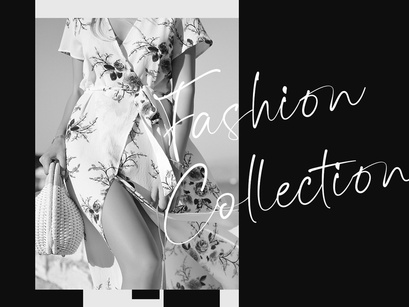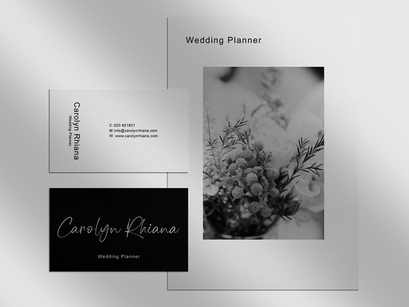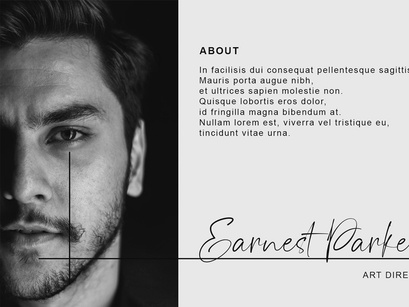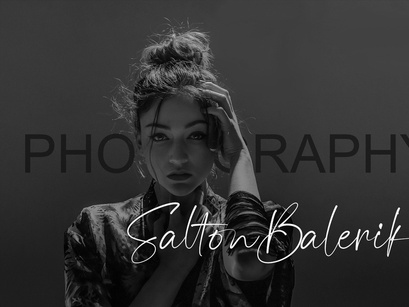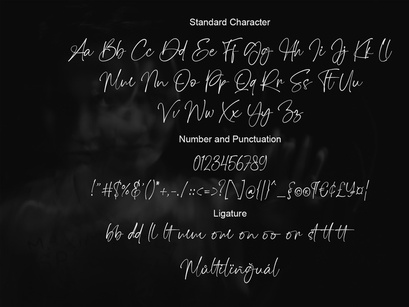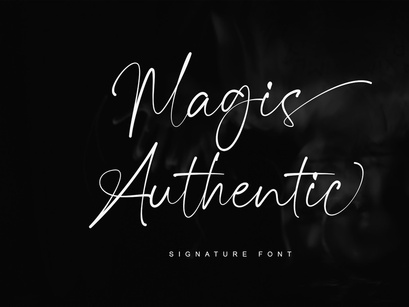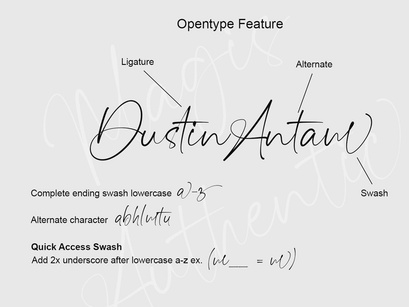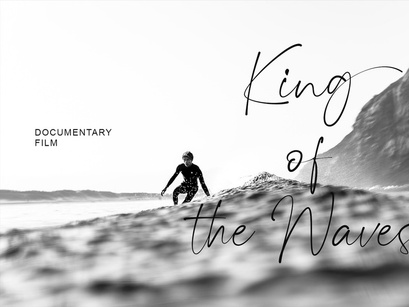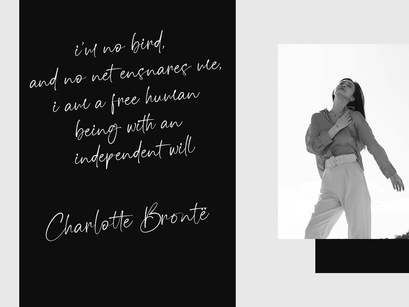
Magis Authentic - Signature Font
Magis Authentic is a signature style font, with a natural & stylish flow. Magis Authentic Font is perfect for many different project such as logos & branding, invitation, stationery, wedding designs, social media posts, advertisements, product packaging, product designs, label, photography, watermark, special events or anything.
Ligatures
Swash
Uppercase and Lowercase letters
Numbering and Punctuations
Also Multilingual Support